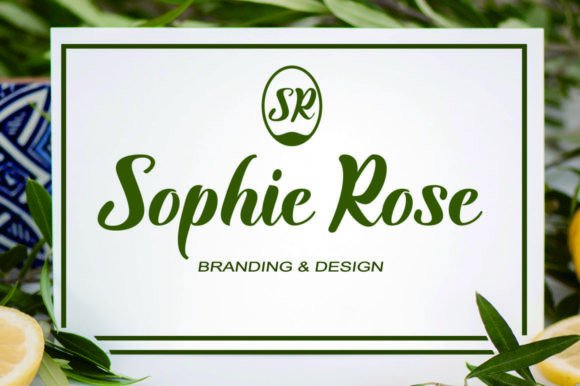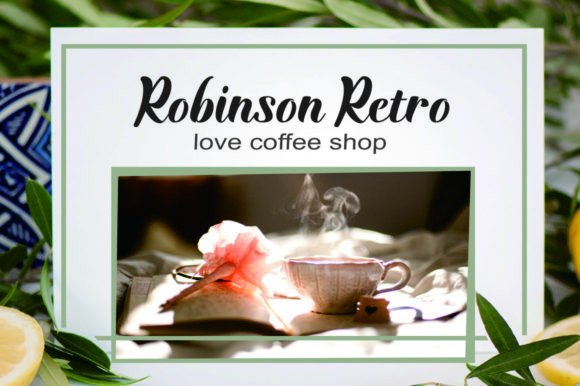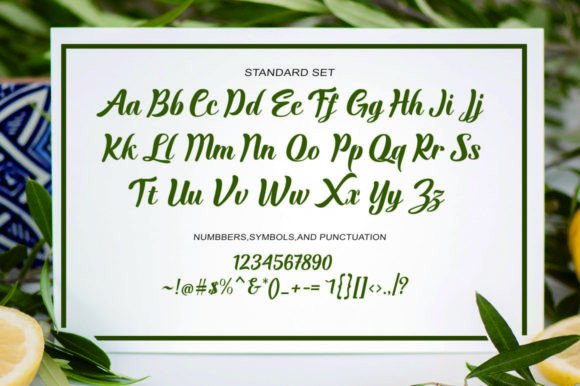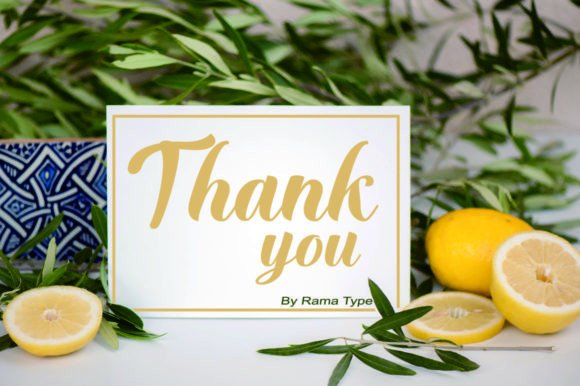
Introduction to Rejeki Font
Do you remember that moment when you stumble upon the perfect font, and suddenly your creative project starts to take shape? For many designers, that moment is a game-changer. It’s the spark that ignites the passion and creativity, transforming an idea into a beautiful reality. For us, that moment came when we discovered the Rejeki Font – a cute, versatile, and flexible handwritten font that has become an invaluable design resource.
What sets Rejeki Font apart is its unique ability to evoke emotions and create a sense of warmth and romance. Whether you’re working on a high-quality design project or simply need a free download for a personal creative endeavor, Rejeki Font is sure to deliver. With its transparent background and flexible design, this font is perfect for designers who want to add a touch of personality to their work.
Key Features of Rejeki Font
- Unique and elegant design, perfect for creative projects and design resources.
- Features a transparent background, allowing for seamless integration into high-quality designs.
- High-resolution font, suitable for print and digital applications at 300 DPI or higher.
- Designed to be versatile and adaptable, ideal for use in a variety of design contexts.
- Includes a range of characters and glyphs, making it a comprehensive design resource.
Honest Review: Rejeki Font
As a designer, I’m always on the lookout for high-quality design resources to enhance my creative projects. The Rejeki Font caught my attention with its unique, hand-drawn style and transparent background, making it perfect for adding a personal touch to my designs.
Here’s what works well: ✨ The font’s diverse set of glyphs and characters make it suitable for a wide range of design applications, from logos to editorial content. The free download option is also a major plus, allowing designers to experiment with the font without breaking the bank.
Overall, I’m impressed with the Rejeki Font‘s potential as a design resource. With its unique style and transparent background, it’s an excellent choice for designers looking to add a creative touch to their projects. Just be aware of the potential limitations and plan accordingly.
- Unique, hand-drawn style
- Diverse set of glyphs and characters
Tips for Getting the Most Out of Rejeki Font
For the best results, use the Rejeki Font on a transparent background to create a clean and modern look. Experiment with different font sizes and styles to find the perfect fit for your creative project.
Rejeki Font is ideal for use in logos, branding materials, and marketing materials. Its unique design and high-quality formatting make it a great resource for designers working on creative projects.